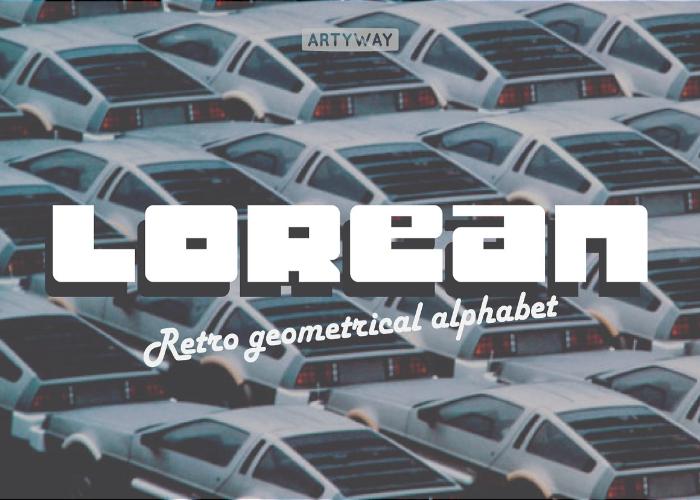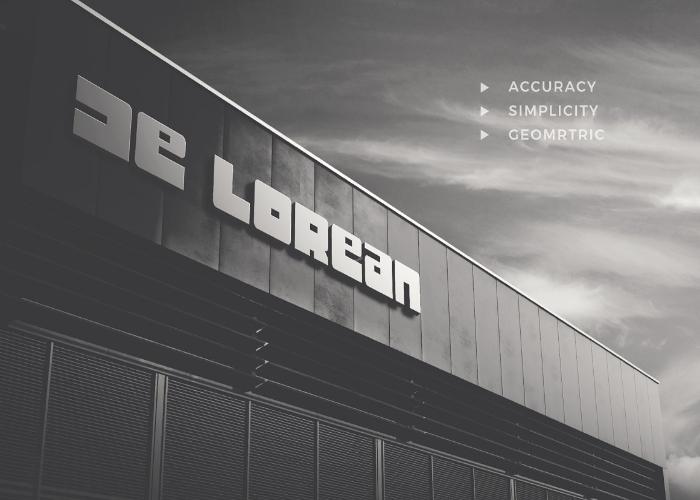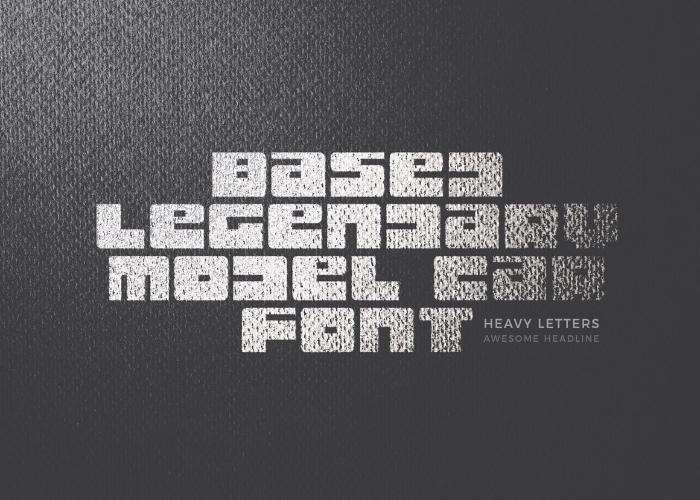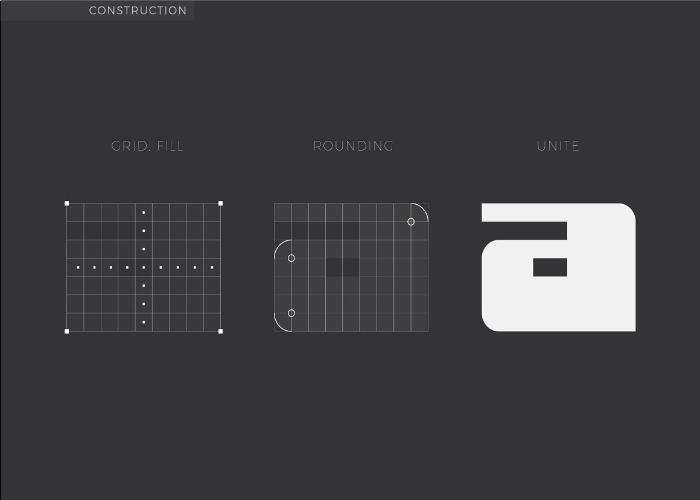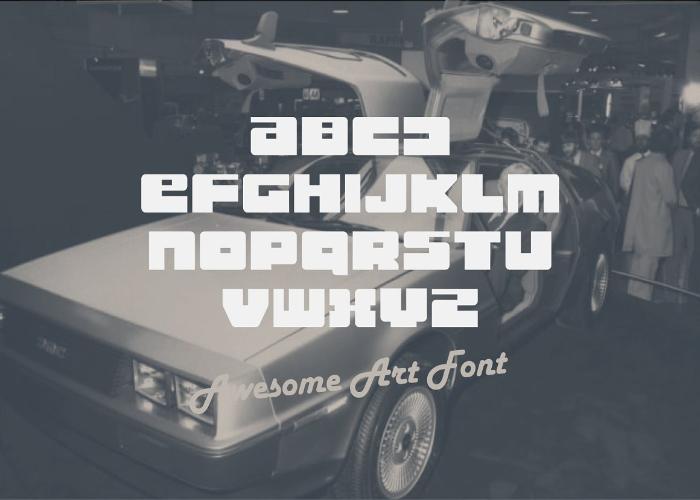
Are you a fan of the “Back to the Future” movie and always wondered where could you get a font like that? Pixelo’s presents to you ‘Lorean Font’
Lorean Font is inspired by the DeLorean car letters aesthetics. And the result of it is a unique successor, a neat geometric font. At the same time more modern and versatile “Lorean” evokes a pleasant feeling, it surprises and soothes.
Reminds me of the Back to Future! Very retro and a classic!
Great font to use for a Vintage Car Day flyer.
Right font to use for a Vintage Car show flyer.
Nostalgic … LOVE IT!
A nice retro style font. Heavy and impressive.
Great retro font which lots of potential for designs in all niches.